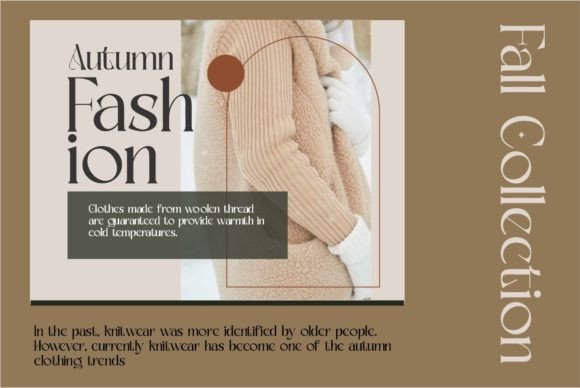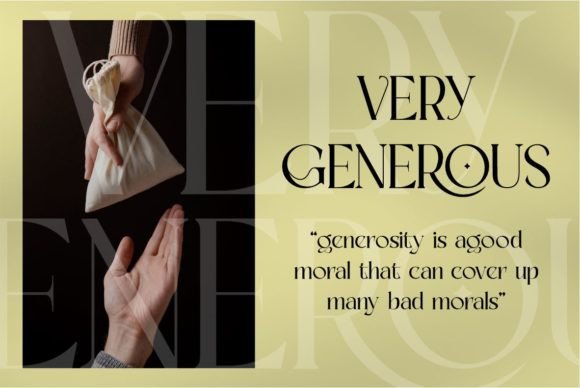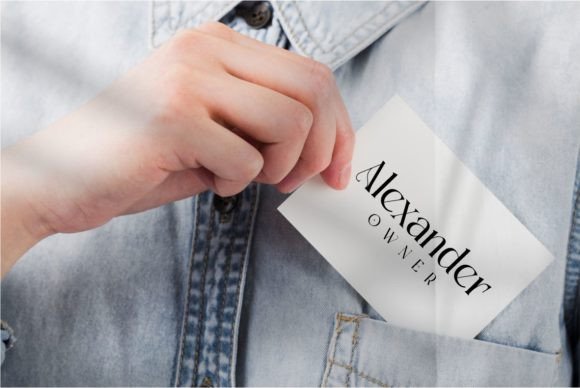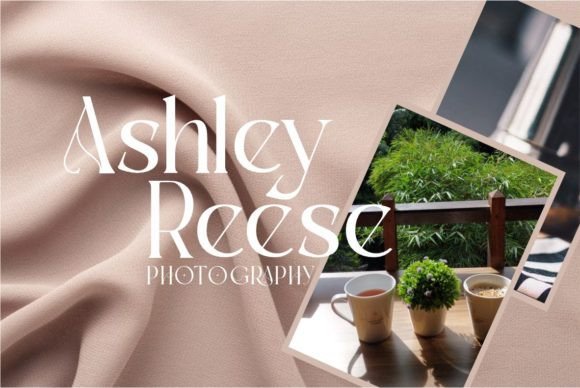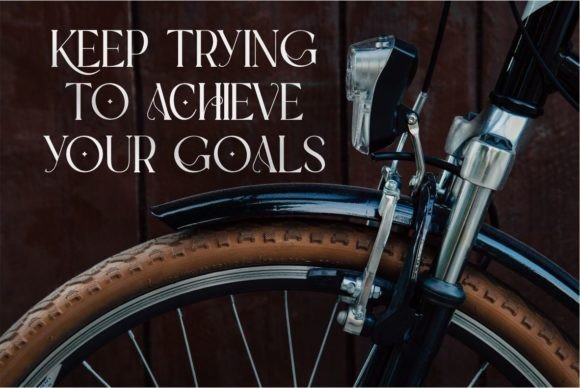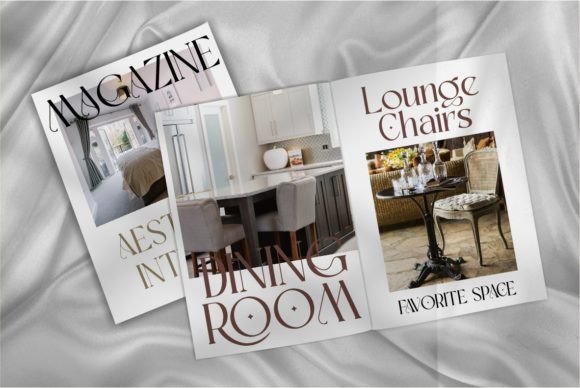
Introduction to Royal Crown Font
You’ve finally landed the big design project – a high-end wedding invitation or a luxurious branding campaign for a new client. As you browse through your design resources, your eyes land on the perfect font: the Royal Crown Font. Its elegant curves and refined proportions are sure to elevate your design and leave a lasting impression on your clients.
The Royal Crown Font is more than just a stylish serif font – it’s a design resource that exudes sophistication and refinement. Its timeless beauty makes it a valuable addition to any designer’s toolkit, and its free download makes it accessible to creatives of all levels. Whether you’re working on a high-quality print project or a digital design, the Royal Crown Font is a versatile and reliable choice.
Key Features of Royal Crown Font
- High-quality design suitable for creative projects, including invitations, logos, and other design resources.
- Includes multiple font styles, including bold, italic, and regular, to cater to diverse design needs.
- Perfect for designers seeking a unique and elegant font to elevate their creative project.
Honest Review: Royal Crown Font
I recently had the chance to work with the Royal Crown Font and I must say, it’s a great addition to any designer’s toolkit. With its high quality and free download, it’s an excellent resource for creative projects.
What I like most about this font is its elegant and sophisticated design. It’s perfect for creating a regal or luxurious feel in your design, making it ideal for branding and marketing materials. The transparent background option also gives you the flexibility to easily layer it over any background image or color.
Here are some of the key features that make the Royal Crown Font stand out:
- ✨ Elegant and sophisticated design
- ✨ Transparent background option
- ✨ Ideal for creative projects, branding, and marketing materials
However, I do have to mention a few limitations:
- ⚠️ Limited font variations (only a few weights and styles are available)
- ⚠️ Not suitable for body text (due to its formal and elegant design)
Overall, I’m really impressed with the Royal Crown Font and would definitely recommend it as a design resource for any creative project. Just keep in mind its limitations and use it wisely.
Tips for Getting the Most Out of Royal Crown Font
Experiment with different font sizes and colors to create a visually appealing design. Use the font in combination with other design elements, such as images and graphics, to add depth and interest to your project.
The Royal Crown Font is ideal for a variety of creative projects, including wedding invitations, business cards, and marketing materials. Its elegant and sophisticated design makes it perfect for high-end branding and design projects.